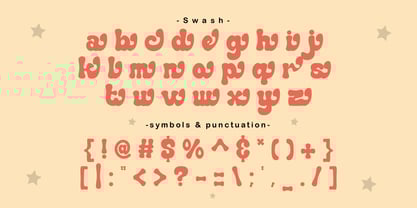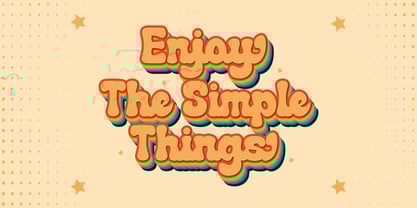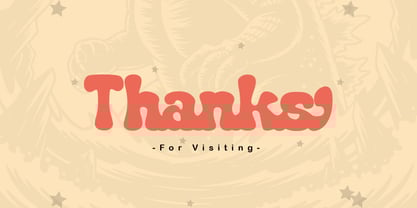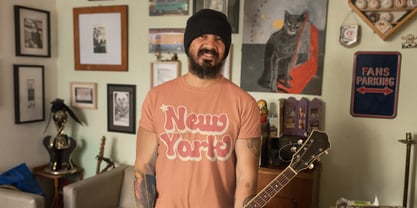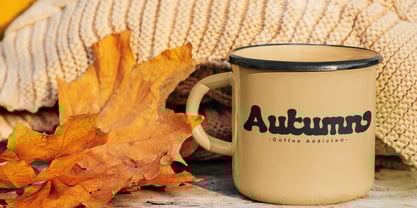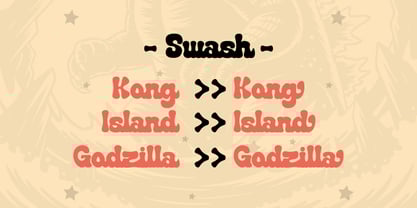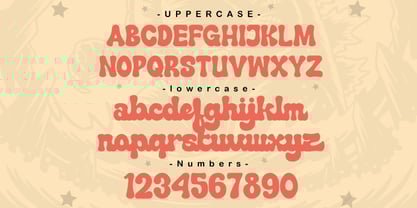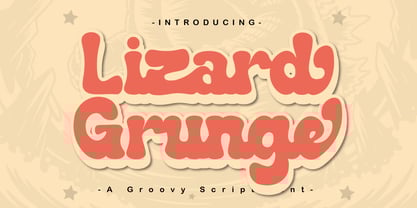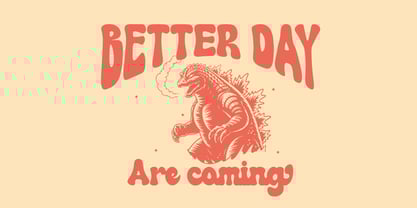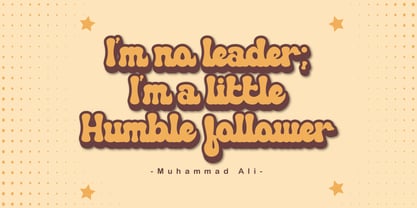
Lizard Grunge
by Patlot Digital Studio
The Lizard Grunge Font Family was designed by Gugun Gunawan and published by Patlot Digital Studio. Lizard Grunge contains 1 styles. More about this family
Lizard Grunge is a retro script font. Whatever your theme, this font will be a valuable addition to your font library.
This font is dedicated to a stunning vintage feel, perfect for wedding invitations, 90s t-shirts, quotes, cards, or any other design that requires a touch of softness.
Designers: Gugun Gunawan
Foundry: Patlot Digital Studio